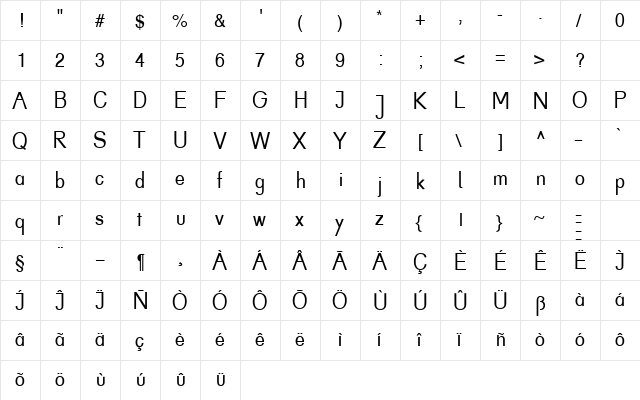
DR BY El Normal
DR BY El takes a measured approach to typography — its balanced proportions and neutral character make it a reliable workhorse for both digital and print work.